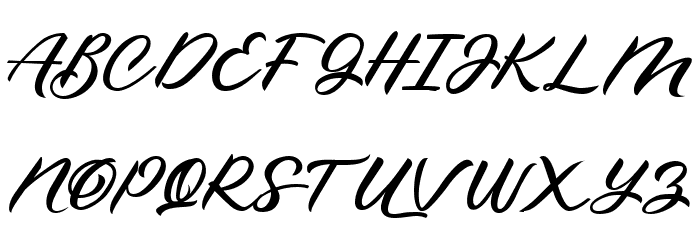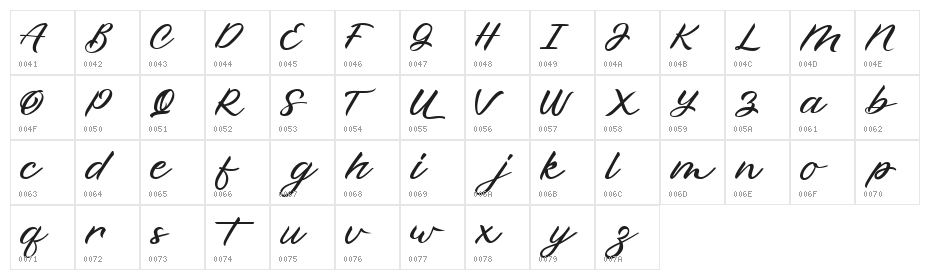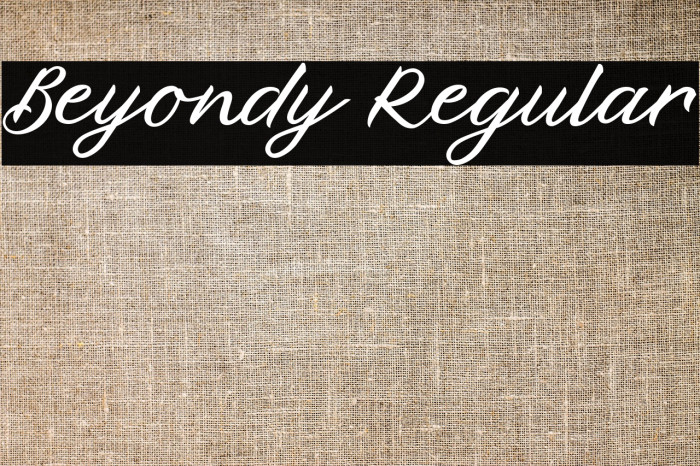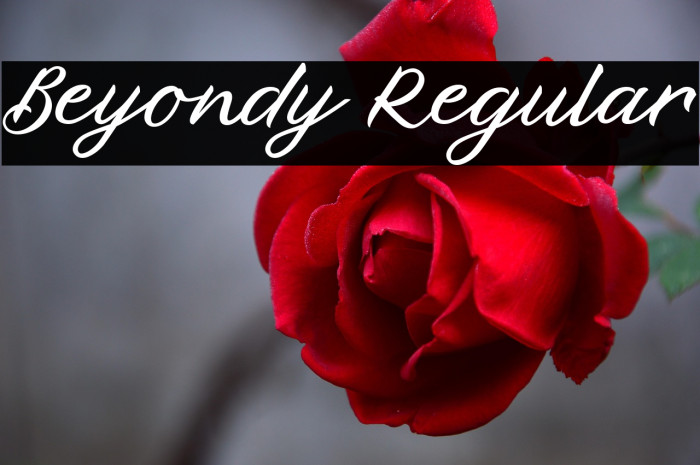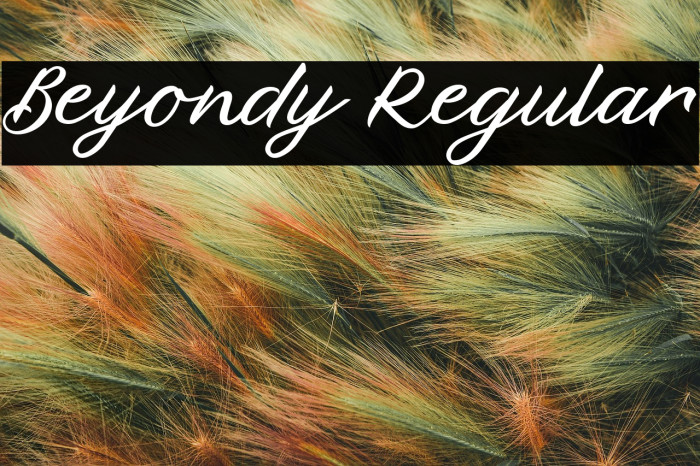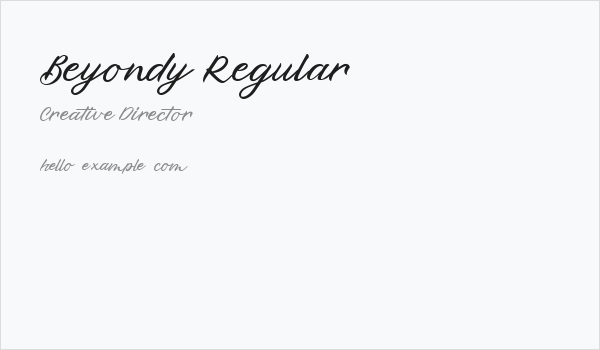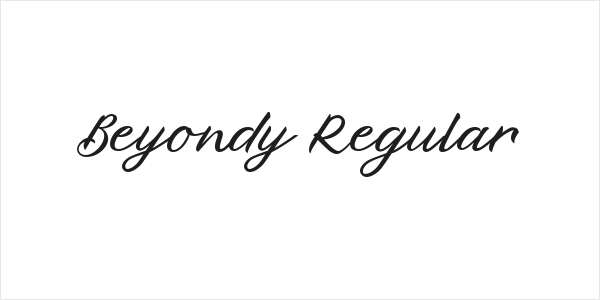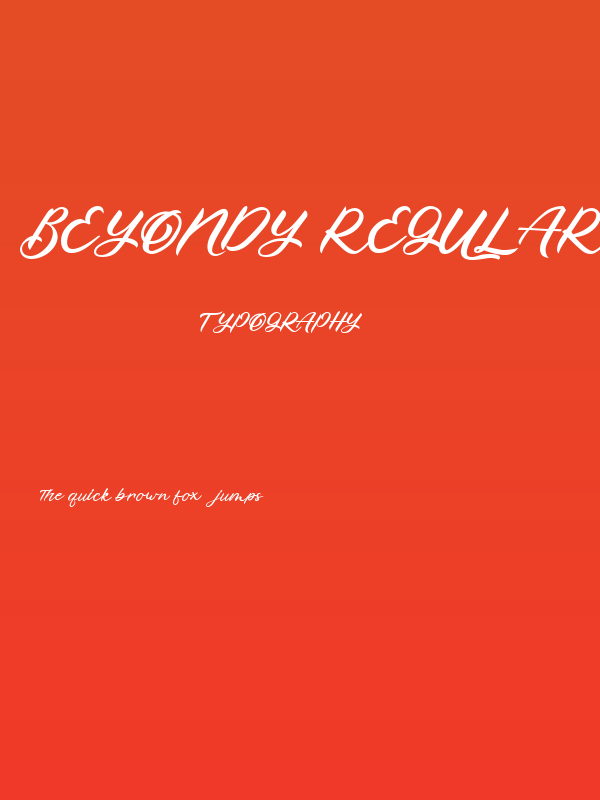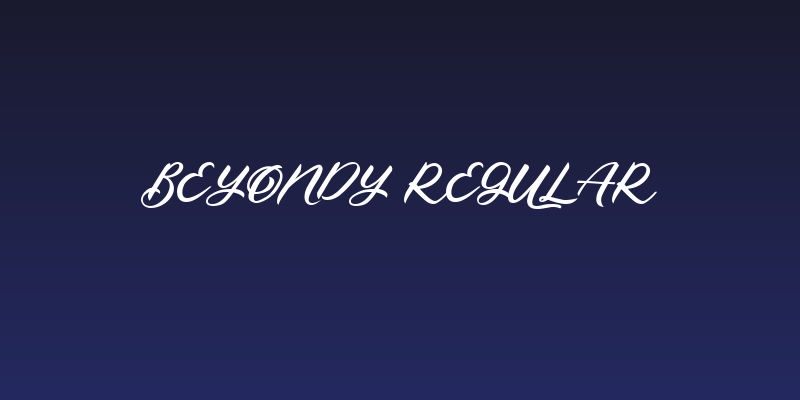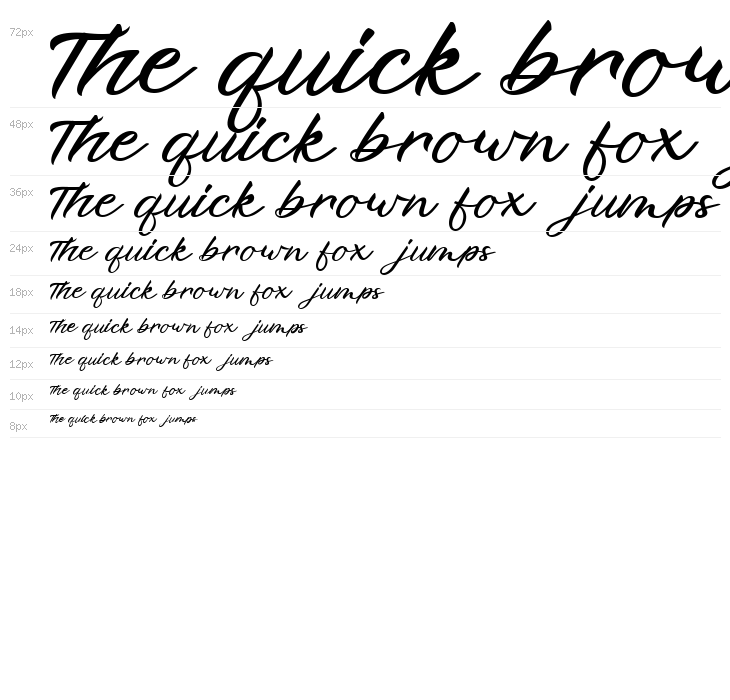
Beyondy Regular Font
Beyondy Regular Description
This font exudes a fluid and elegant script style, characterized by its smooth, flowing lines and cursive letterforms. The uppercase and lowercase letters are designed with a consistent slant, giving it a dynamic and lively appearance. The strokes are moderately thick, providing a balanced contrast that enhances readability while maintaining a sophisticated look. The font's design is reminiscent of traditional calligraphy, with each character seamlessly connecting to the next, creating a harmonious and cohesive text flow. Its artistic flair makes it suitable for projects that require a touch of elegance and personal expression.